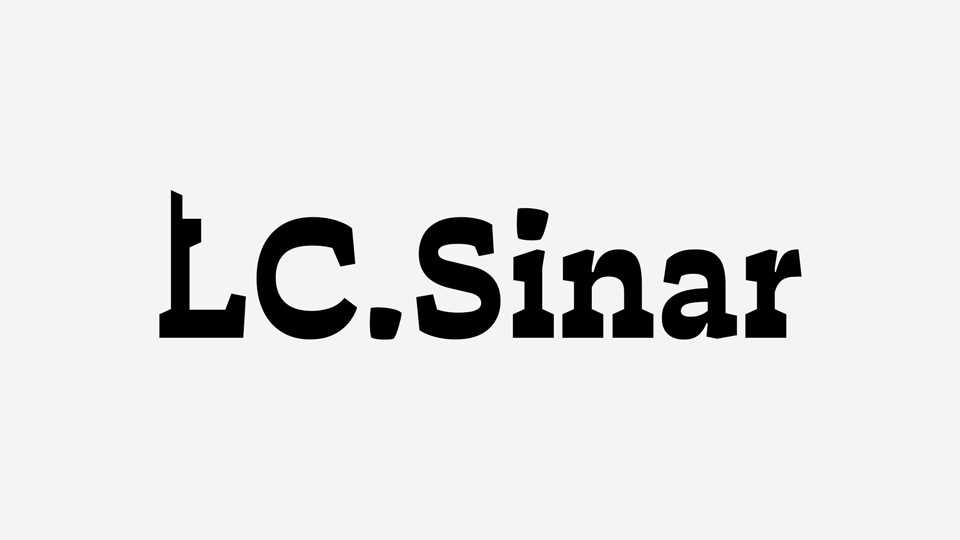
Download LC Sinar font, an aesthetic reverse contrast variable typeface with a confident and contemporary style. LC Sinar offers everything from impressive to elegant looks with unique touches.
Designer: Lokal Container